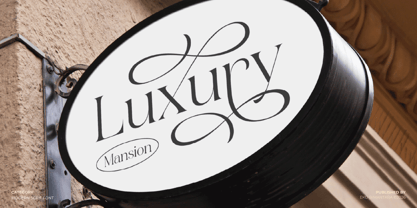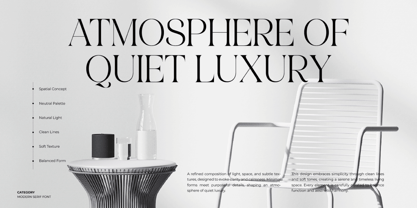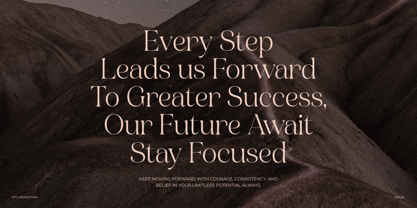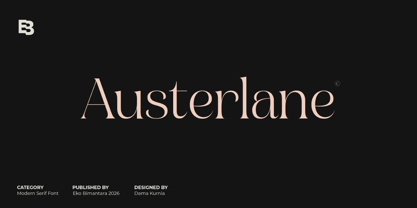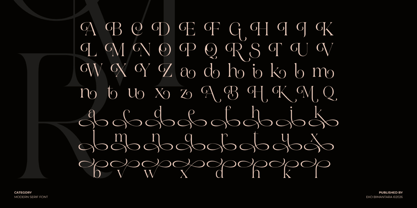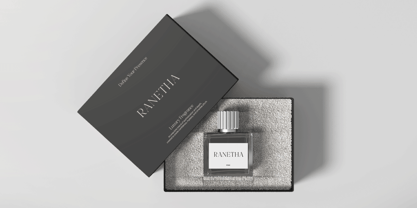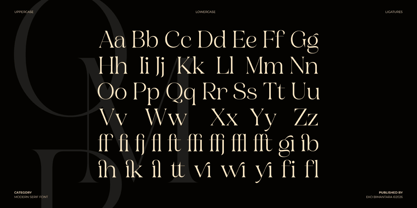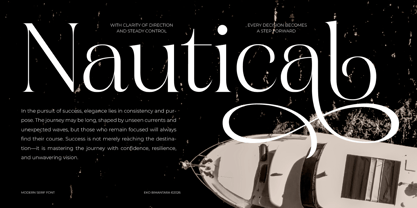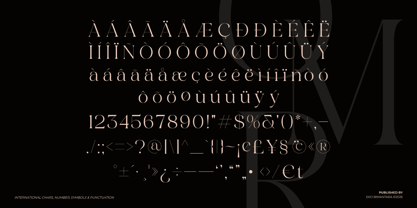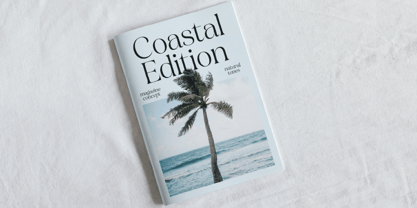
Austerlane
Austerlane is a refined modern serif typeface that embodies elegance, clarity, and contemporary sophistication. Characterized by its high contrast strokes, graceful curves, and delicately sculpted serifs, it delivers a timeless yet fashion-forward aesthetic ideal for editorial layouts, luxury branding, and high-end packaging. The balanced proportions and open spacing ensure excellent readability, while subtle stylistic details add a distinctive and polished personality. Austerlane seamlessly blends classic serif traditions with modern design sensibilities, making it a versatile choice for designers seeking a typeface that communicates prestige, confidence, and understated beauty.